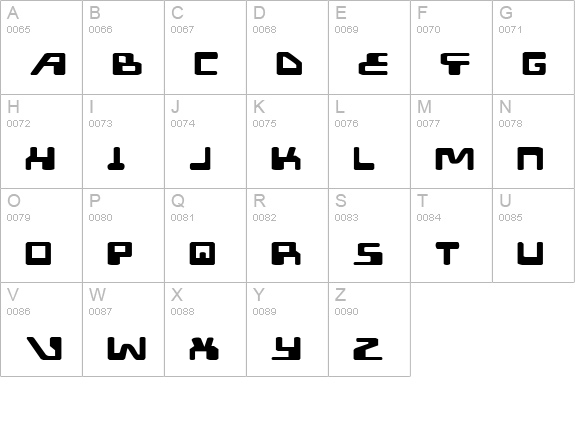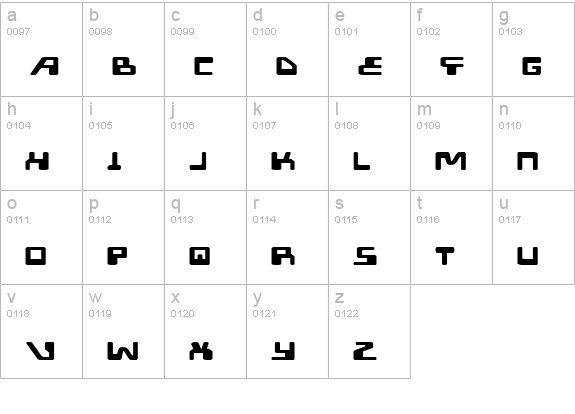
XPED Expanded Font Details
XPED Expanded is a distinctive, extended-width variant in the XPED typeface family \xE2\x80\x94 well suited to design and typography projects.
Introducing XPED Expanded font, a versatile typeface that exudes modernity and sophistication. With its sleek lines and contemporary design, XPED Expanded is perfect for a wide range of creative projects, from branding to editorial design. This font is available in a variety of weights and styles, making it easy to customize and adapt to your specific needs. What sets XPED Expanded apart is not only its striking appearance but also the fact that it is completely free to use. Yes, you heard that right - this high-quality font is freely available for download at FontsMarket.com. So go ahead and elevate your designs with XPED Expanded, the stylish and accessible font choice for all your creative endeavors.